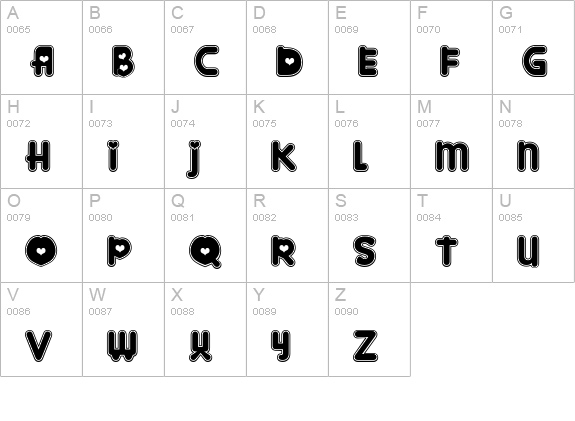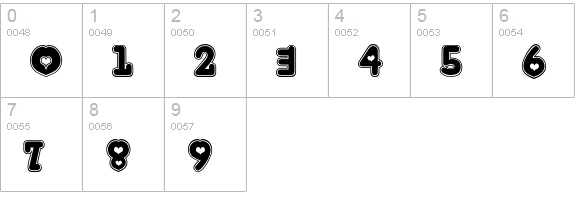
Kinkie Font Details
Introducing Kinkie, a stunning and versatile font that will add a touch of whimsy and playfulness to any design project. With its intricate curves and unique letterforms, Kinkie stands out from the crowd, making your text come alive with personality. This free font boasts a wide range of styles, from elegant and sophisticated to bold and expressive, allowing you to effortlessly convey any message or mood. Whether you're designing a logo, creating eye-catching headlines, or crafting invitations that demand attention, Kinkie has you covered. What sets Kinkie apart is not only its impeccable design, but also its accessibility. This font is freely available for download at FontsMarket.com, allowing designers of all backgrounds and budgets to enjoy its charm and versatility. With just a few clicks, you can bring Kinkie into your creative arsenal and let your imagination run wild. So why wait? Embrace the uniqueness and beauty of Kinkie and let it transform your designs into works of art. Download it today for free at FontsMarket.com and unlock a world of endless possibilities.